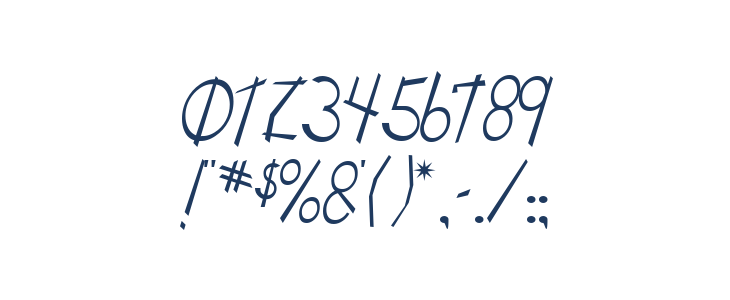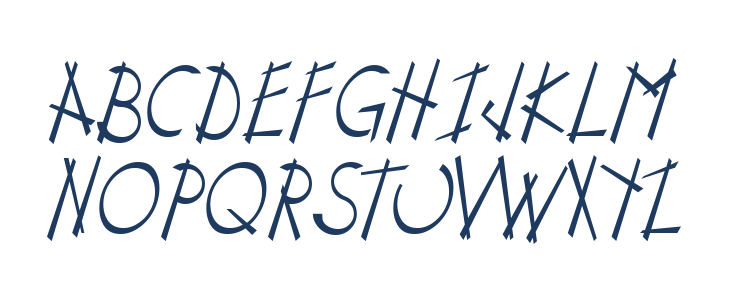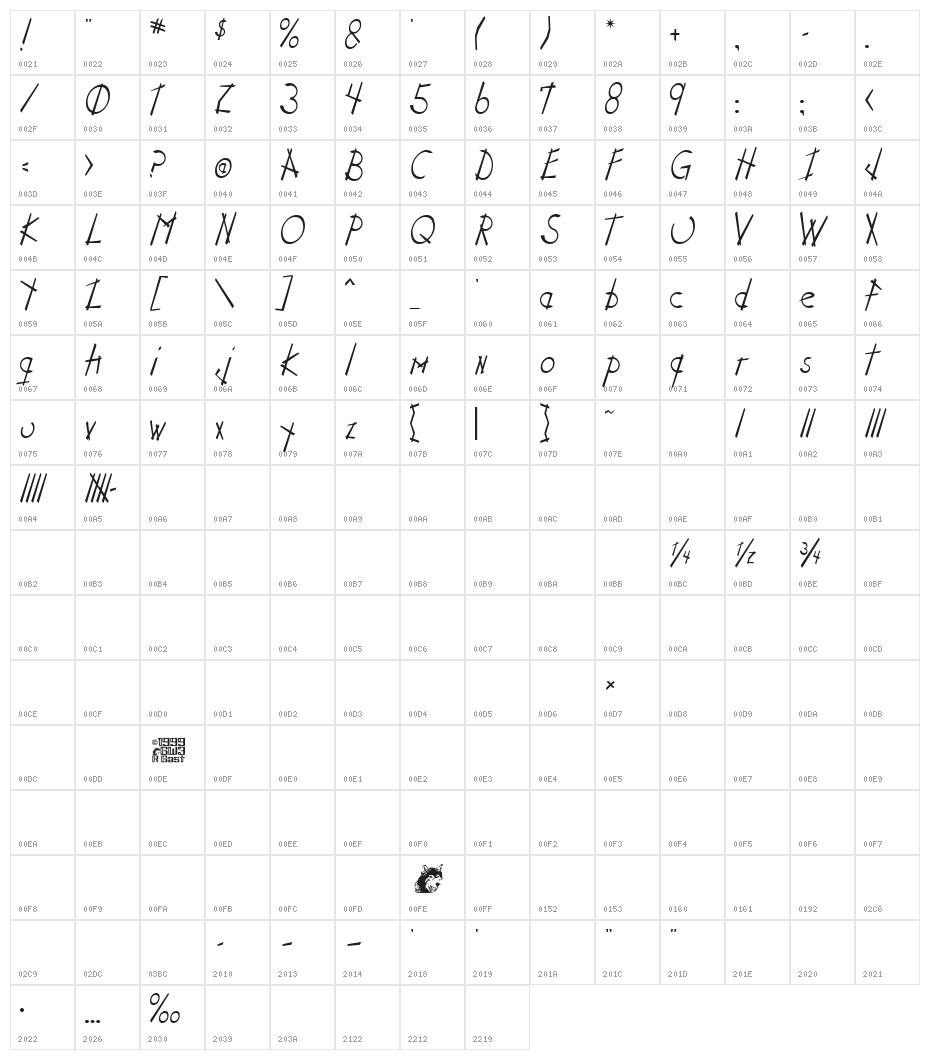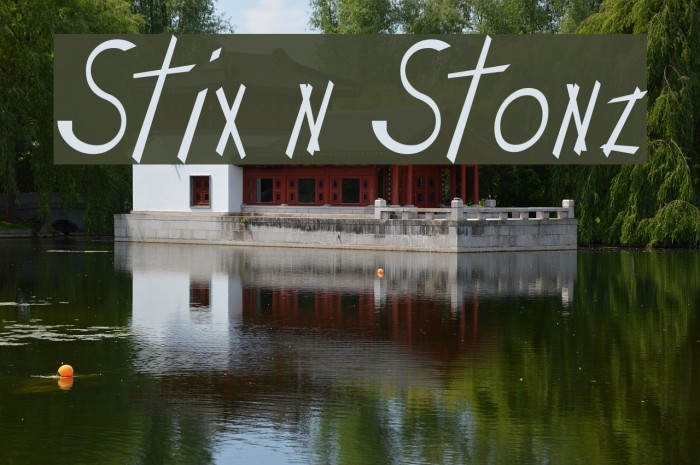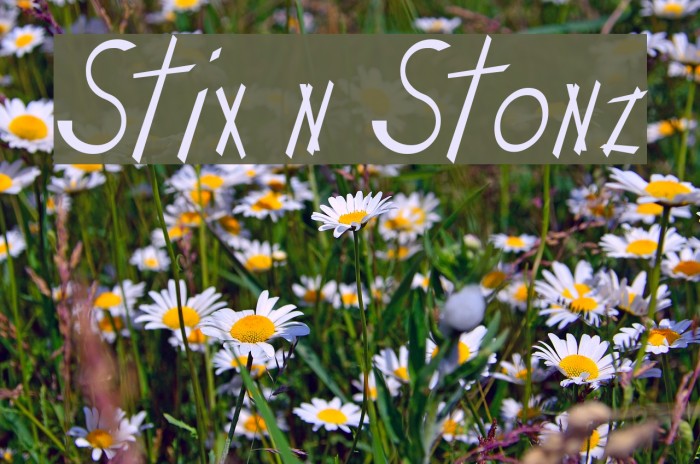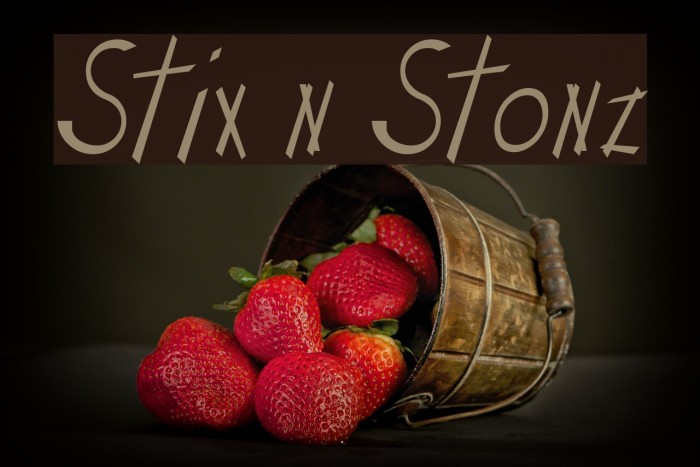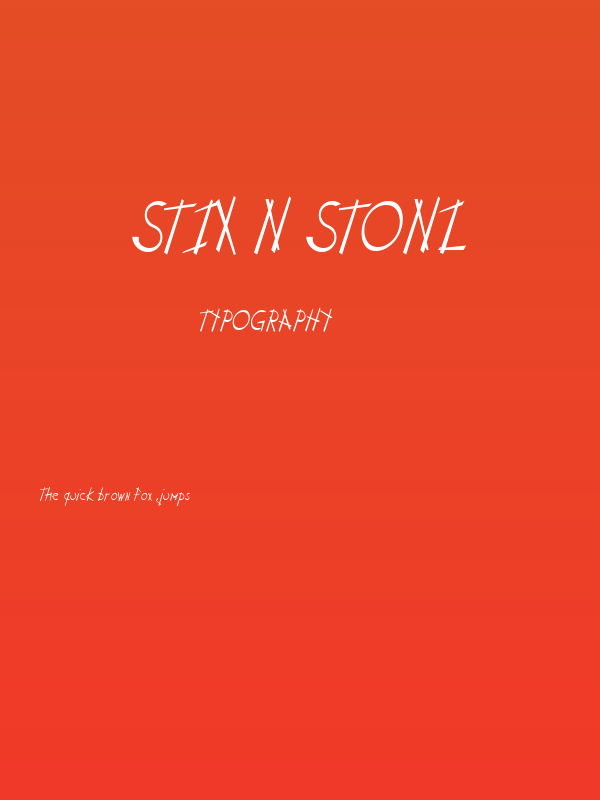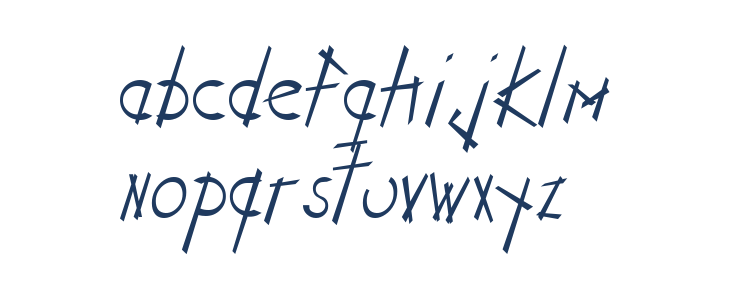
Stix n Stonz Font
Stix n Stonz Description
This font features a playful and dynamic style with a hand-drawn appearance. The characters are slightly tilted, giving a sense of movement and energy. The strokes are uneven, with varying thickness that adds a whimsical touch. The uppercase letters are bold and prominent, while the lowercase letters maintain a consistent style with a slightly more compact form. The numbers and special characters follow the same lively design, making the font suitable for creative and informal projects. Its unique style makes it stand out, perfect for capturing attention.
| Proposed Projects | Ideal for children's books, playful branding, event posters, and creative social media graphics. |